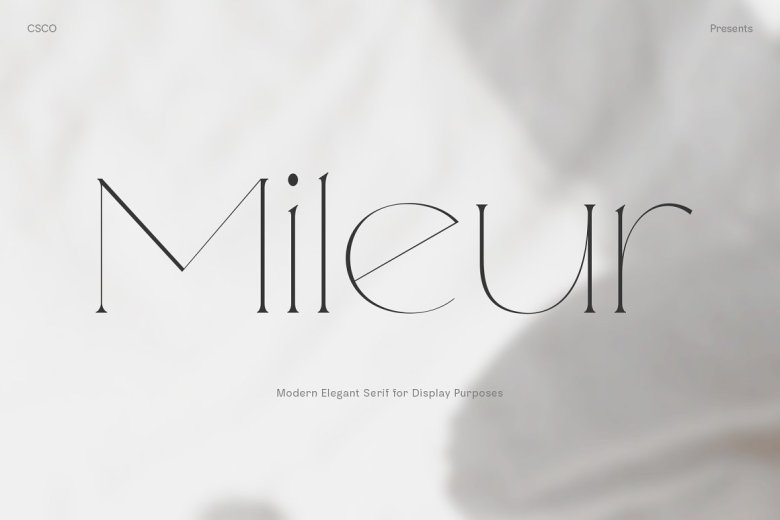
Mileur Font
Mileur is a modern serif with thin stroke, low-contrast modulation, and small serif that give an elegant and classy look in all of its style. It is useful for nearly all design projects (e.g., print materials). Your fantasy job will be even more alive and stunning with those typeface.
Mileur Serif Font